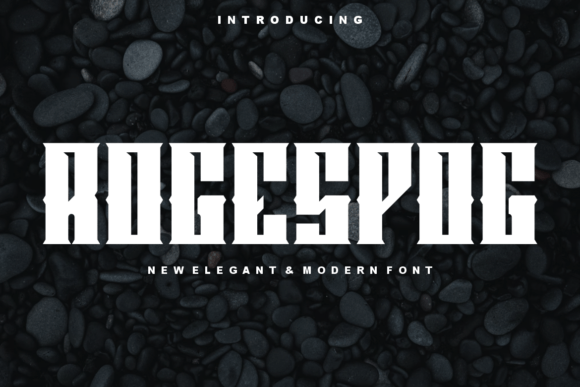
Behold Rogespog, the sleek and contemporary display font that will make your projects shine! Crafted with meticulous attention to detail by the talented cozzdesign0, Rogespog exudes a unique allure that sets it apart from the ordinary.
Immerse yourself in the world of Rogespog and discover a font that speaks to your creative spirit. Its clean lines and sharp angles convey a sense of sophistication and modernity, while its playful curves add a touch of whimsy. Whether you're designing posters, logos, or eye-catching headlines, Rogespog is the perfect choice to make your words stand out.
Unlock the power of communication with Rogespog. Showcase your research findings in captivating posters that demand attention. Let your ideas dance across the page with Rogespog's elegant form, ensuring your message is received with clarity and impact.
Rogespog is more than just a font; it's an experience that will inspire and empower you to create designs that resonate with your audience. Unleash your creativity and let Rogespog guide you towards design excellence. Dive into the world of Rogespog and elevate your projects to new heights!